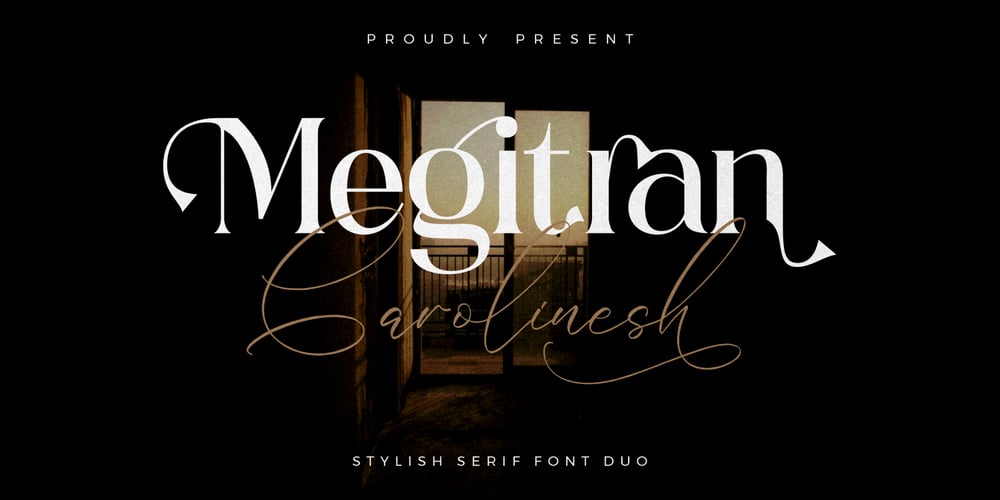
Megitran Carolinesh Script
Megitran Carolinesh Script font
Megitran Carolinesh Script Font Family was designed by Heru Utama Putra and published by Letterena Studios. Megitran Carolinesh Script contains 2 styles and family package options. Proudly present Megitran Carolinesh Font Duo,A serif and script typeface that has its own unique style & modern look.This typeface is perfect for an elegant & luxury logo, book or movie title design, fashion brand, magazine, clothes, lettering, quotes, and so much more.